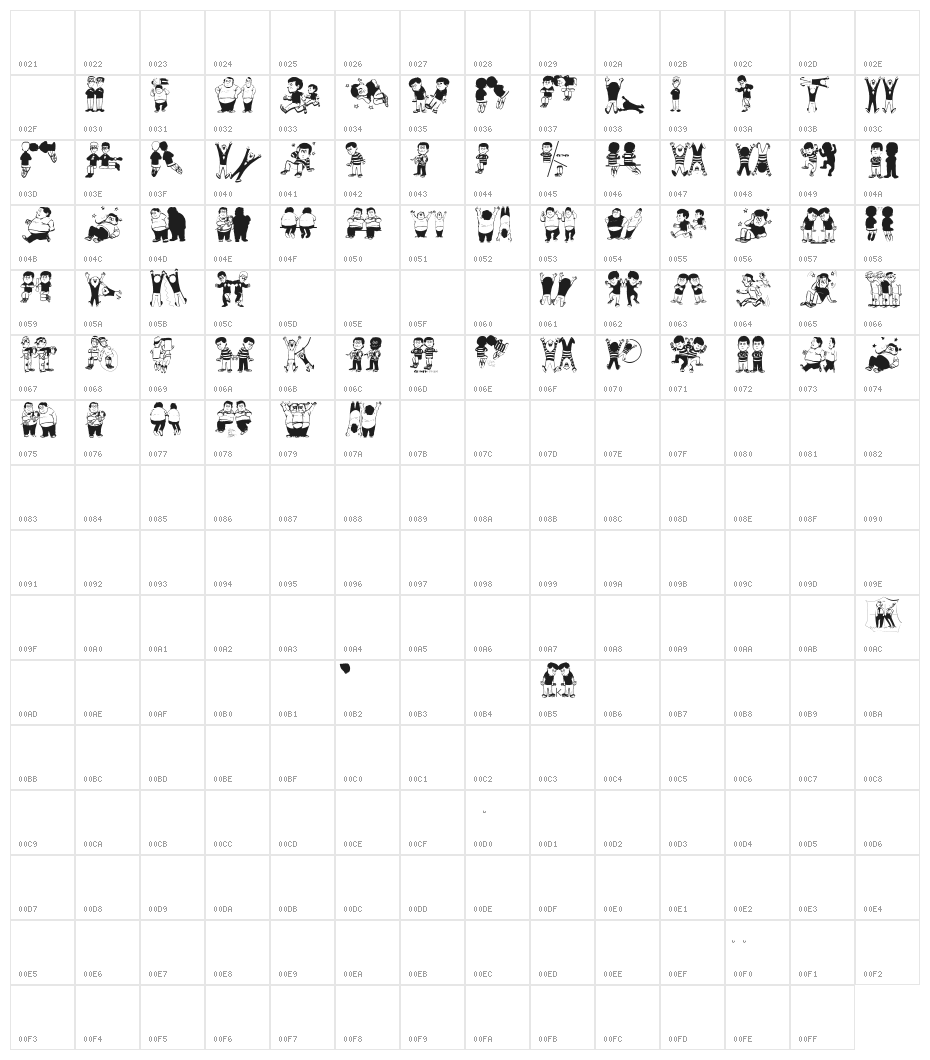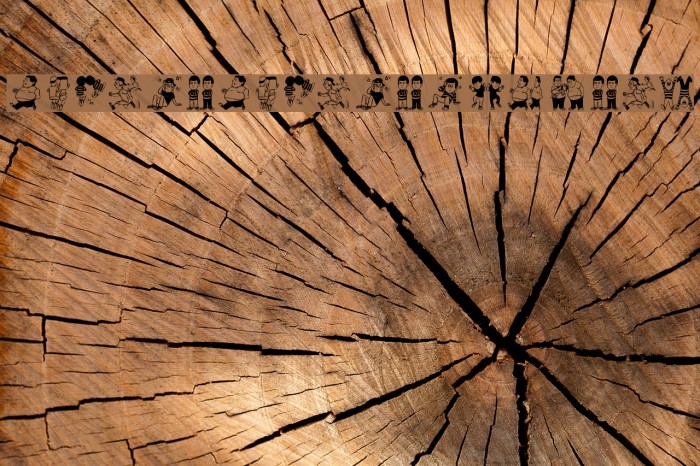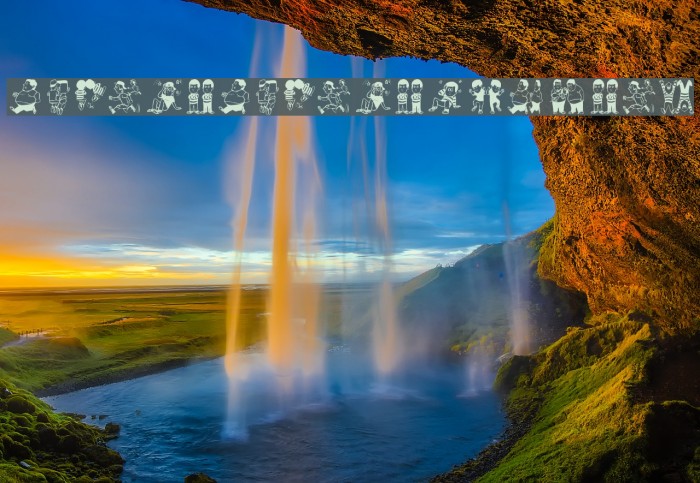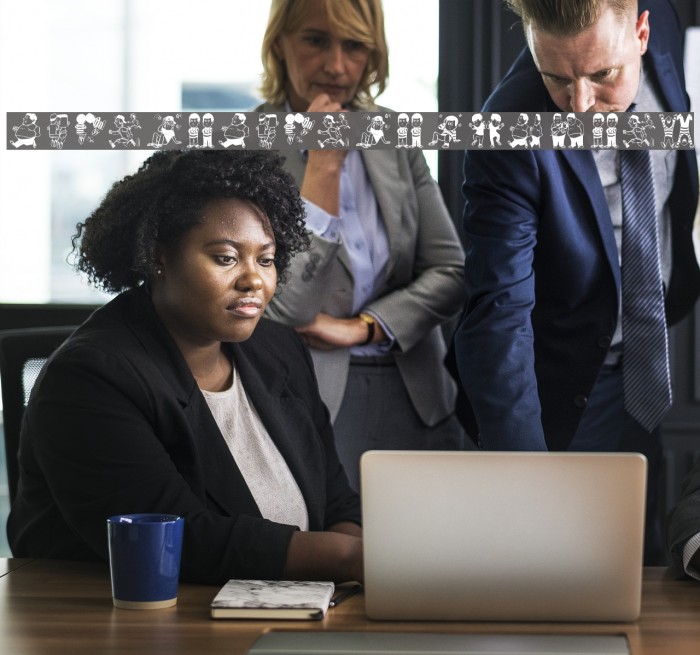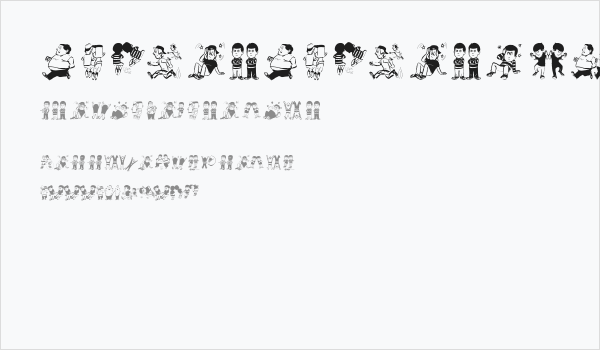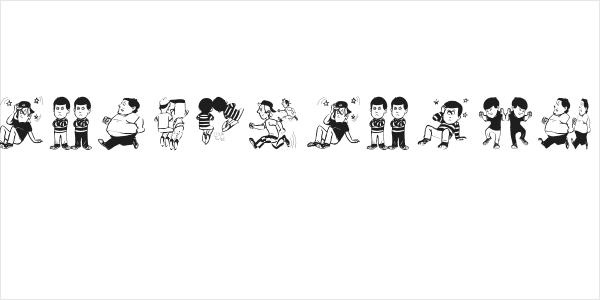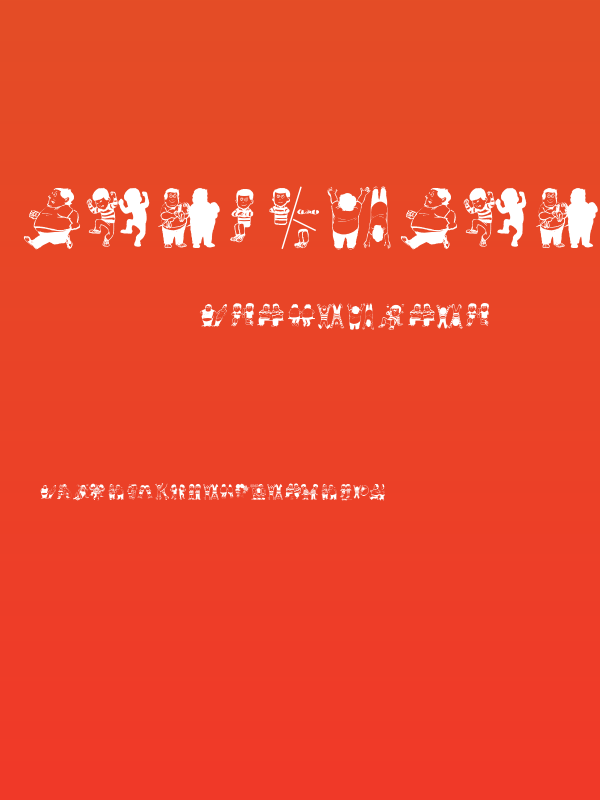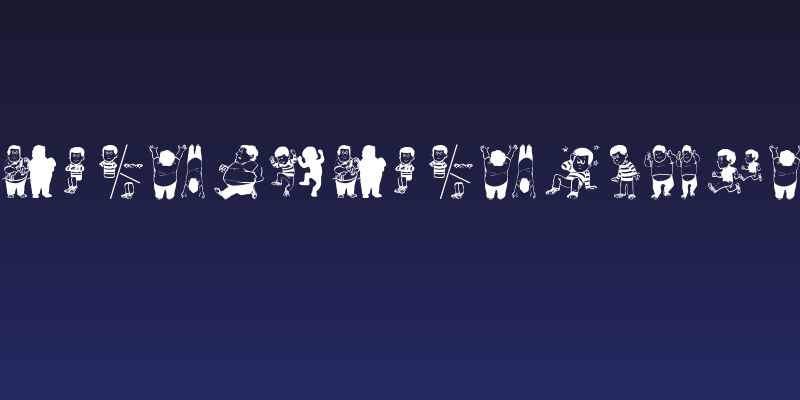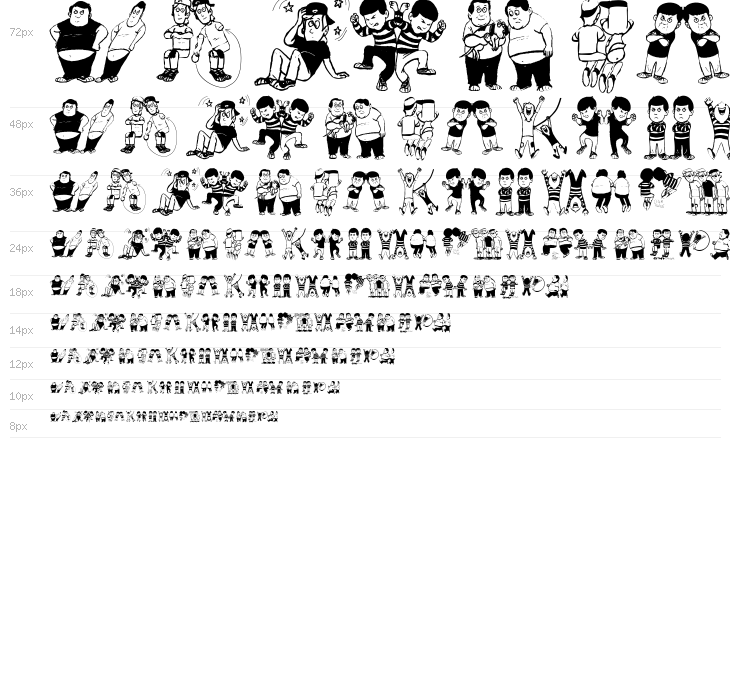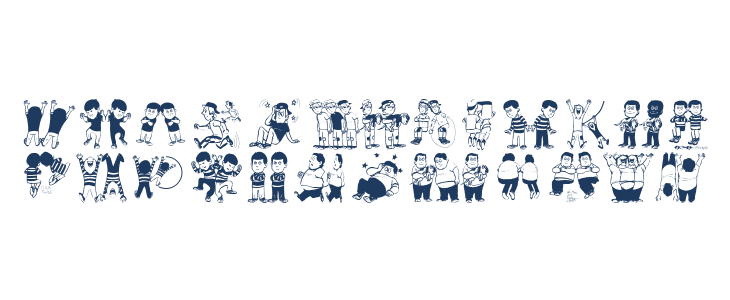
KinderKinderAbsurdo Font
KinderKinderAbsurdo Description
A playful, illustrative display font where each character is formed by groups of cartoon children in various poses, creating a whimsical and lively appearance. The characters are highly decorative and detailed, prioritizing visual storytelling over legibility.
| Overall Style | Playful, Whimsical, Decorative |
| Use Case | Headlines, Logos, Posters, Children's materials |
| Proposed Projects | Children's book covers, playful posters, educational materials, event invitations, branding for kids' products. |